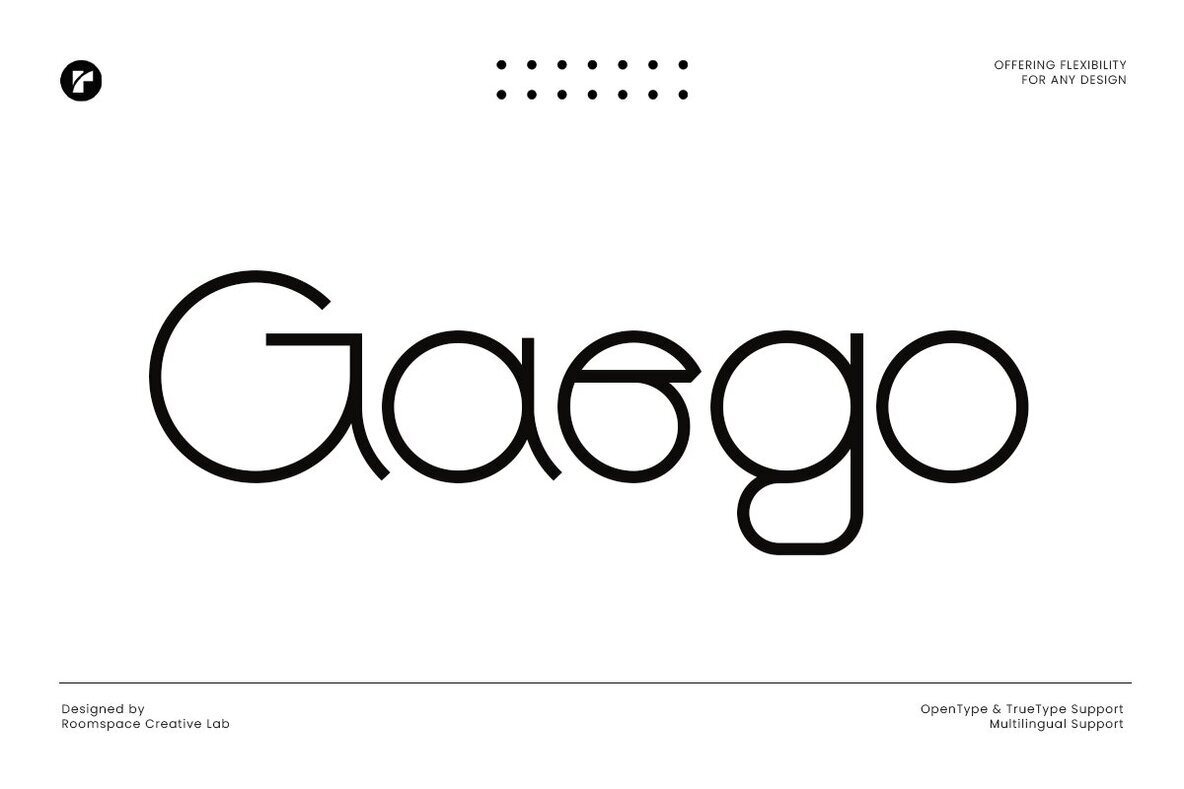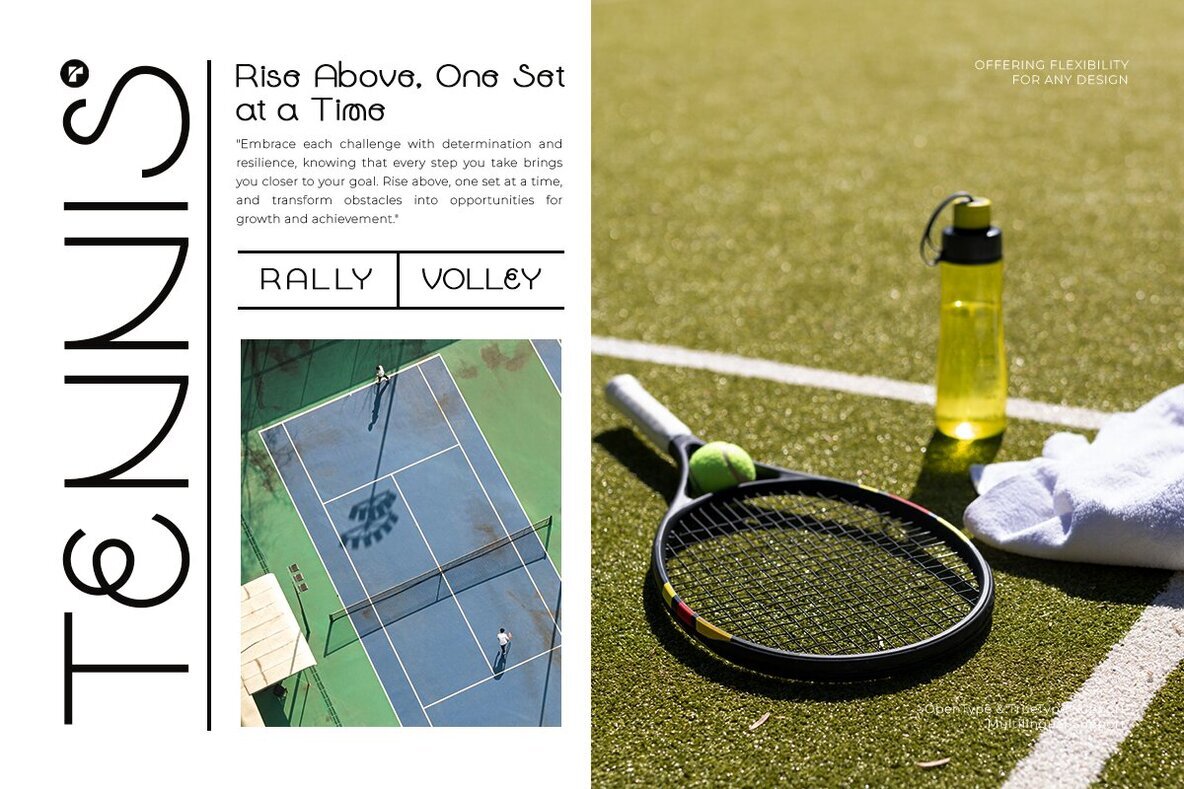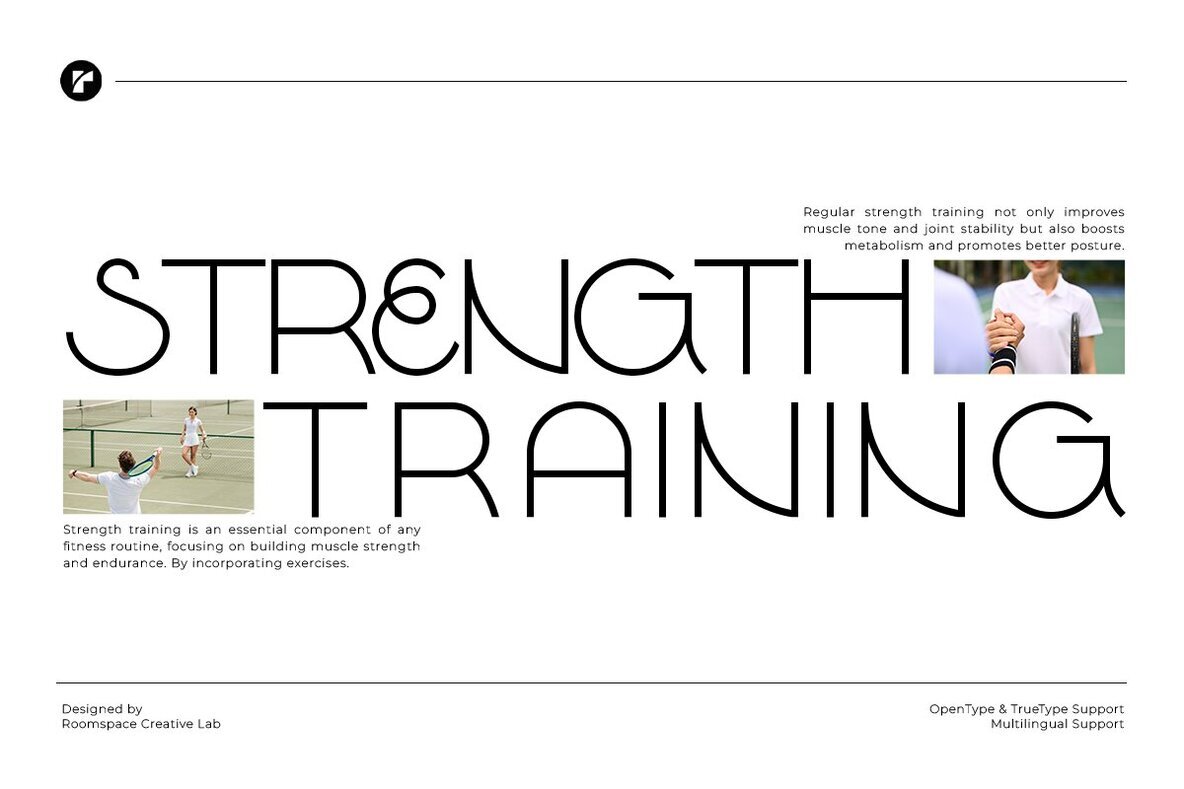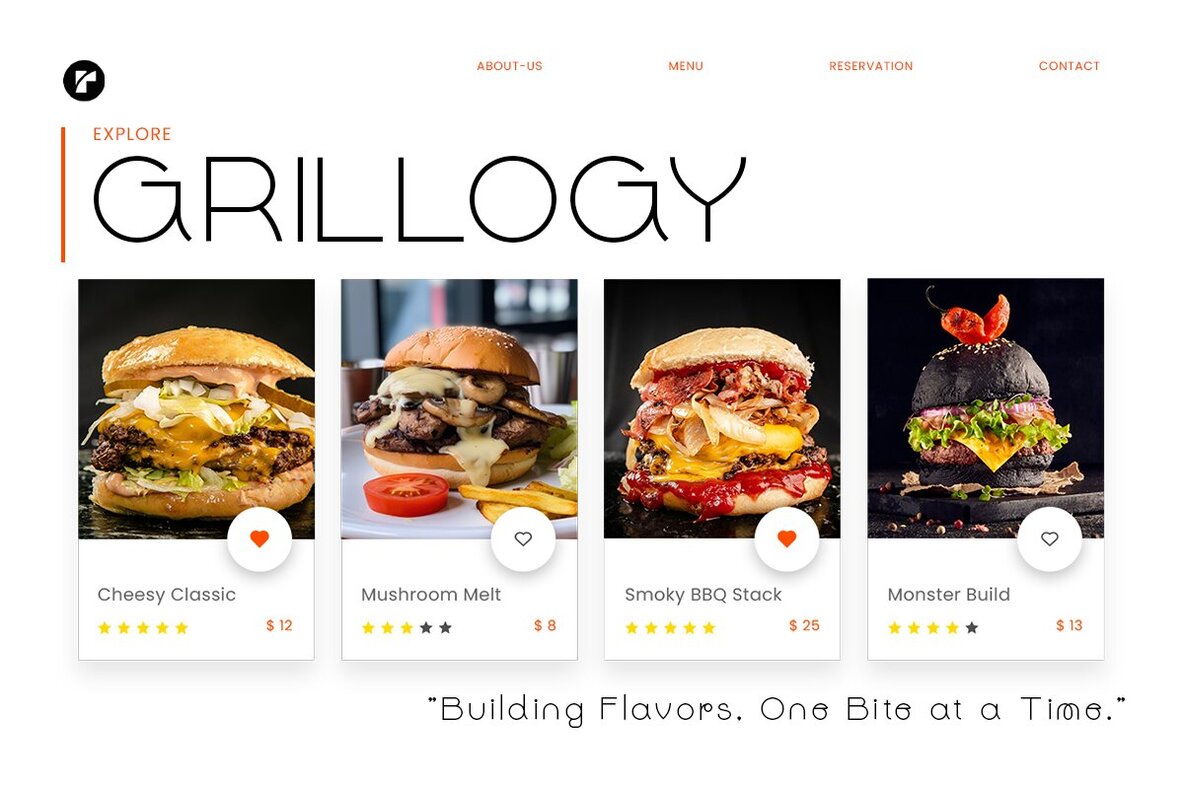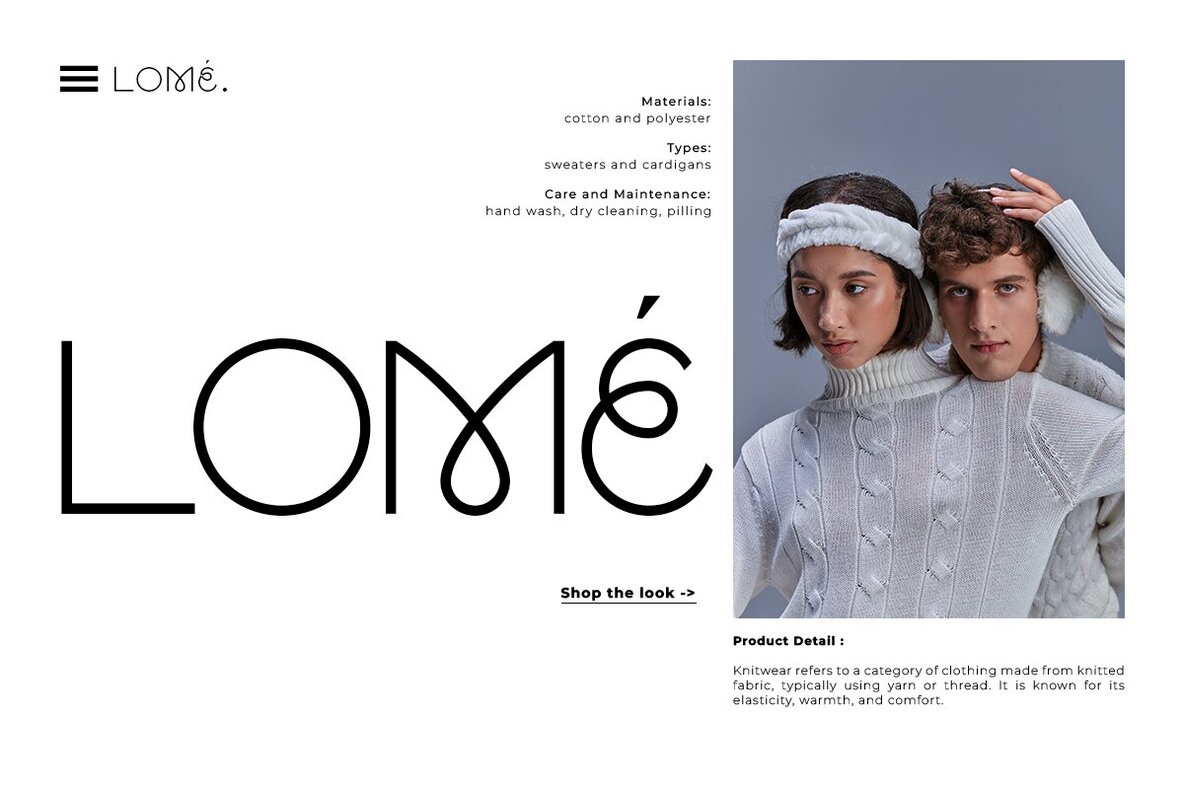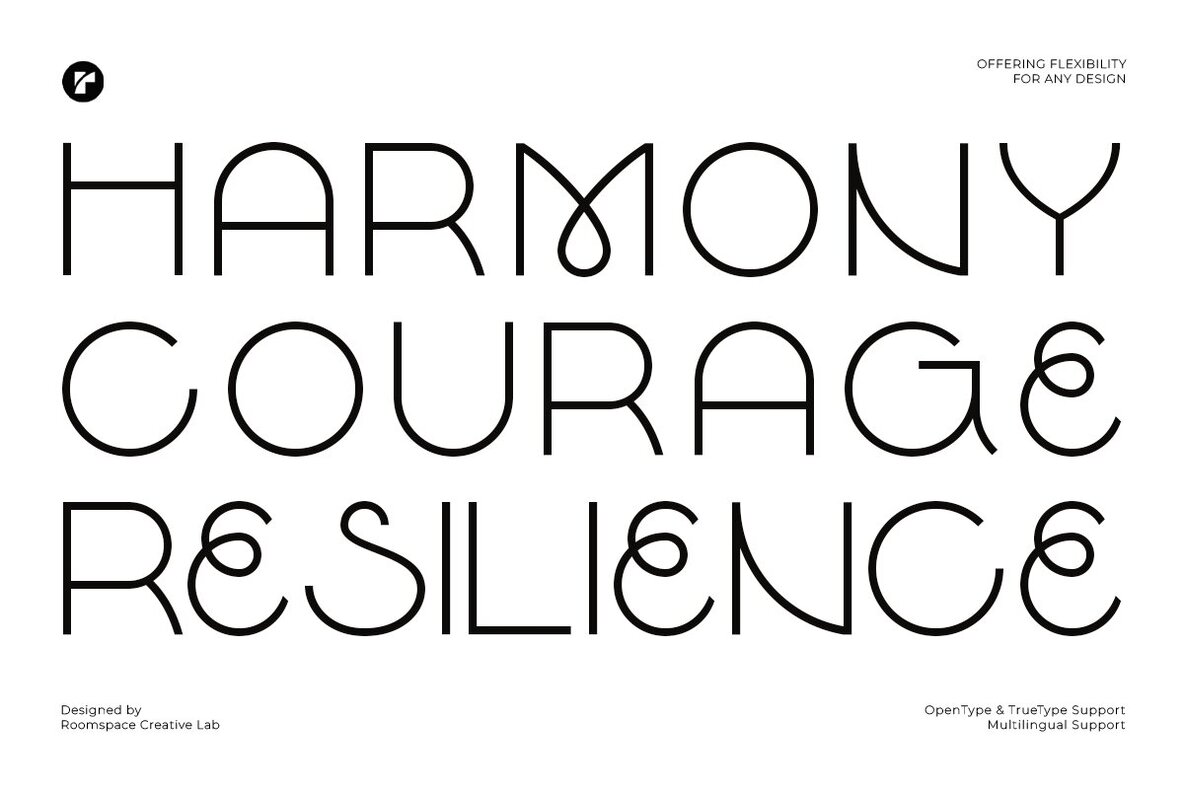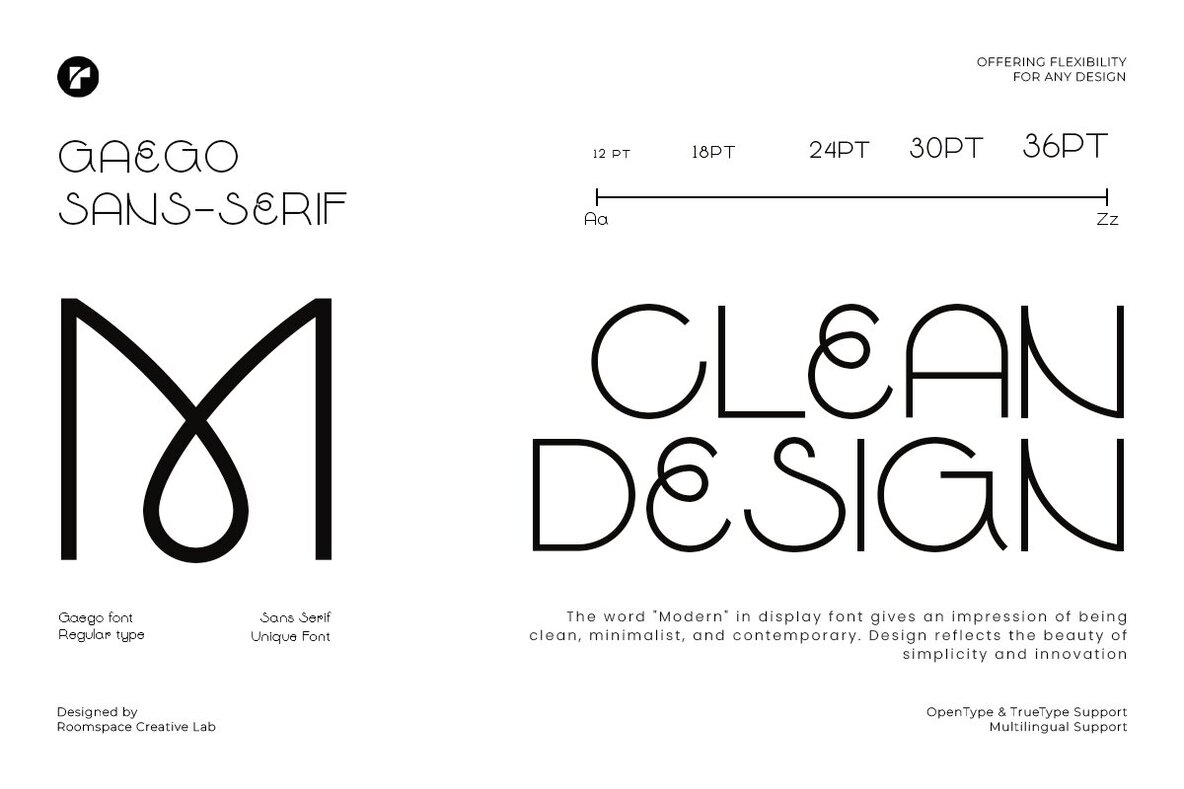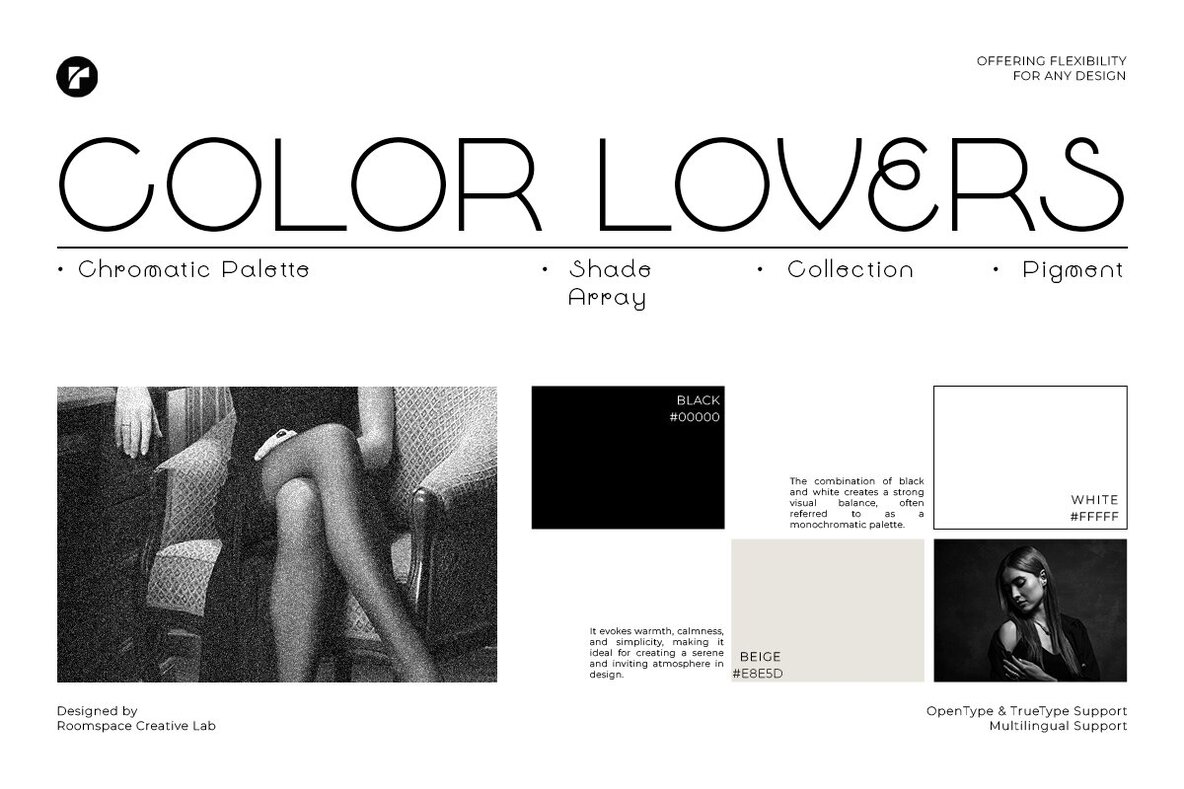
Gaego Font
Gaego Regular
Gaego is a modern sans serif typeface perfect for those in search of a clean and minimalist aesthetic. Its geometric structure balances simplicity and uniqueness, making it a great option for branding, logos, and editorial designs. The design of Gaego offers versatility for use in sleek web design and minimalist projects, ensuring both readability and visual appeal.
Gaego supports both uppercase and lowercase letters, along with numbers and punctuation. It includes multilingual support, making it adaptable for various linguistic needs. The font can be easily installed on both PC and Mac systems, facilitating a straightforward incorporation into your design toolkit. Enhance your creative projects with Gaego, the ideal choice for minimalist and professional design work.